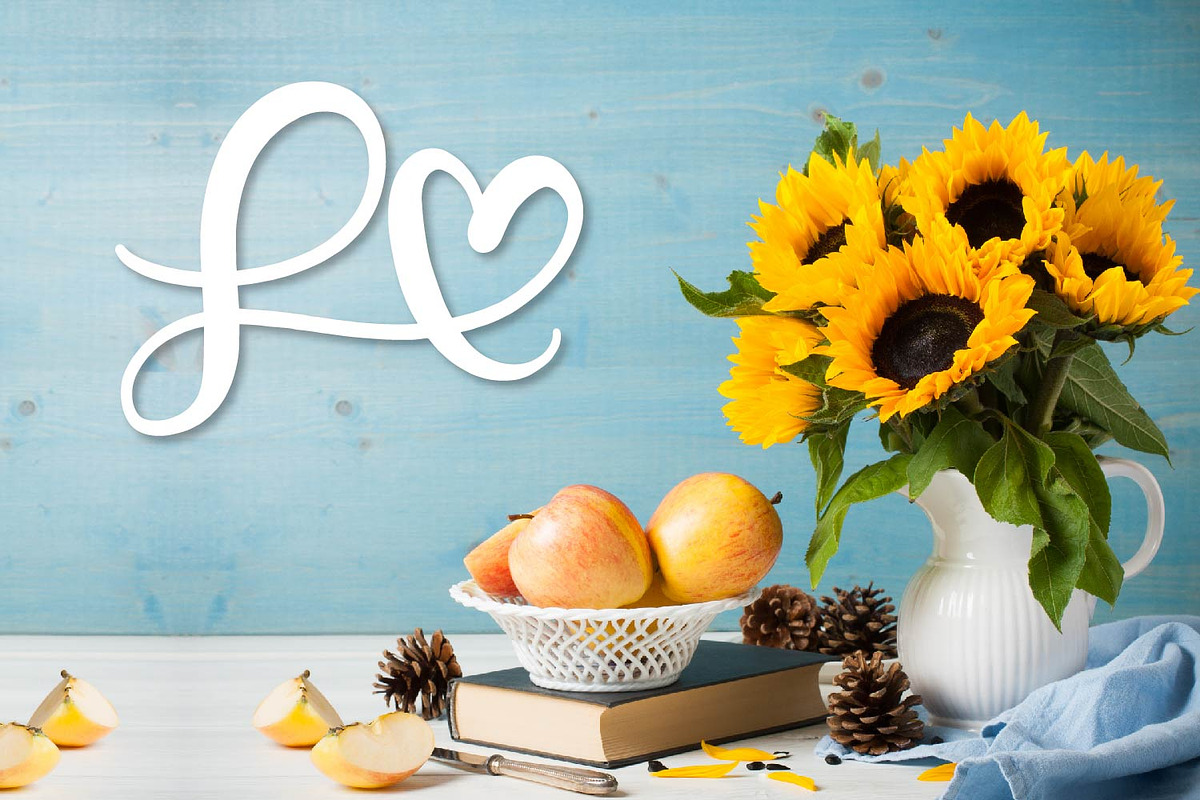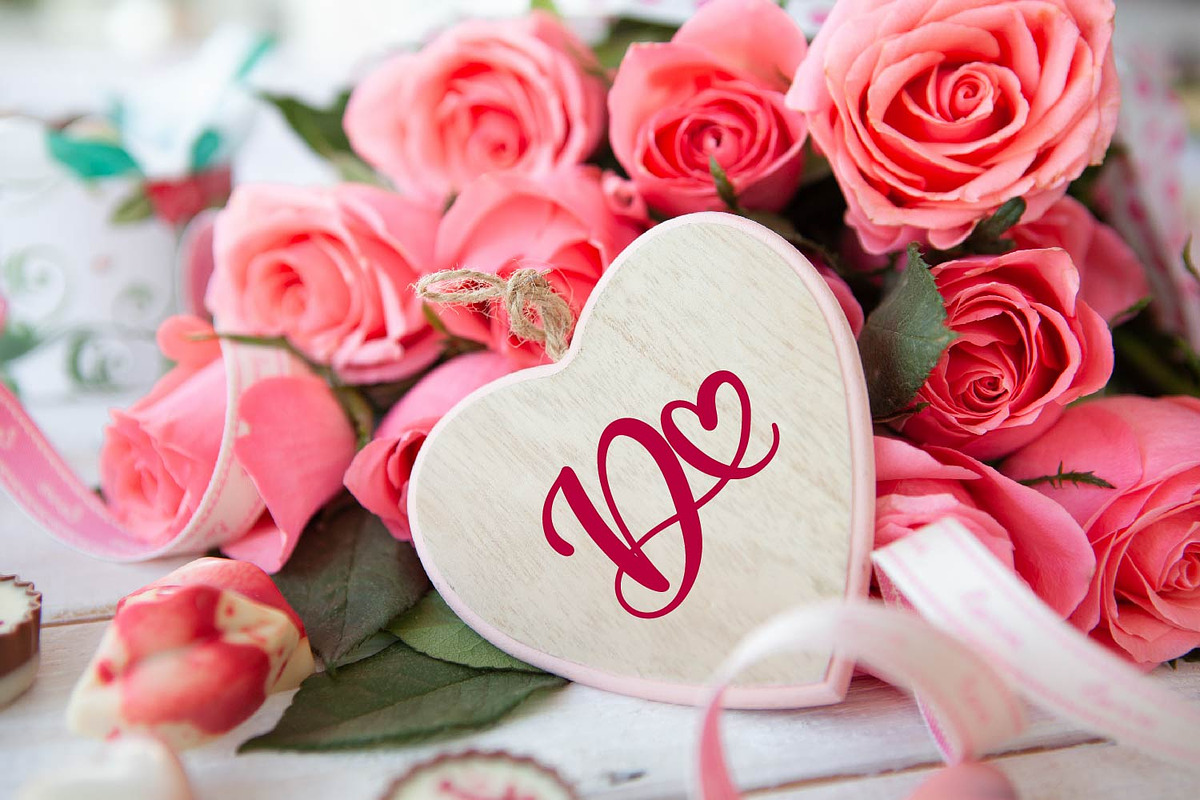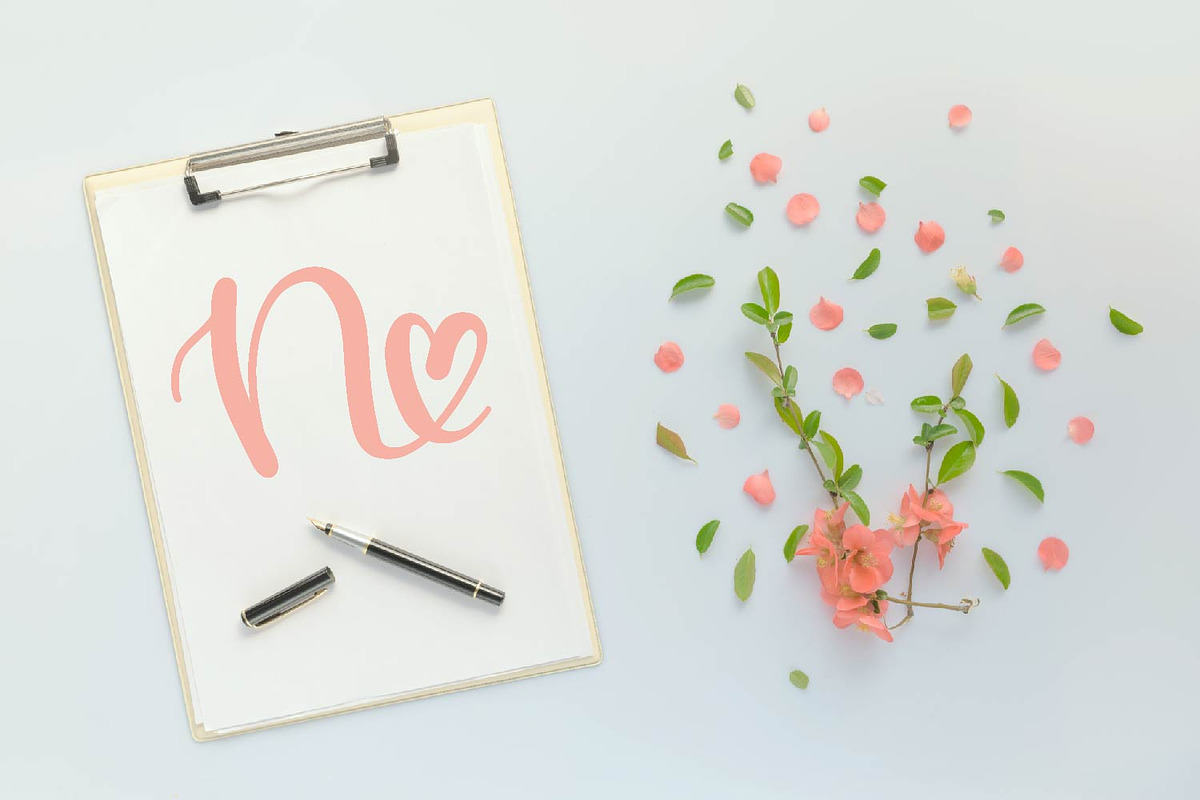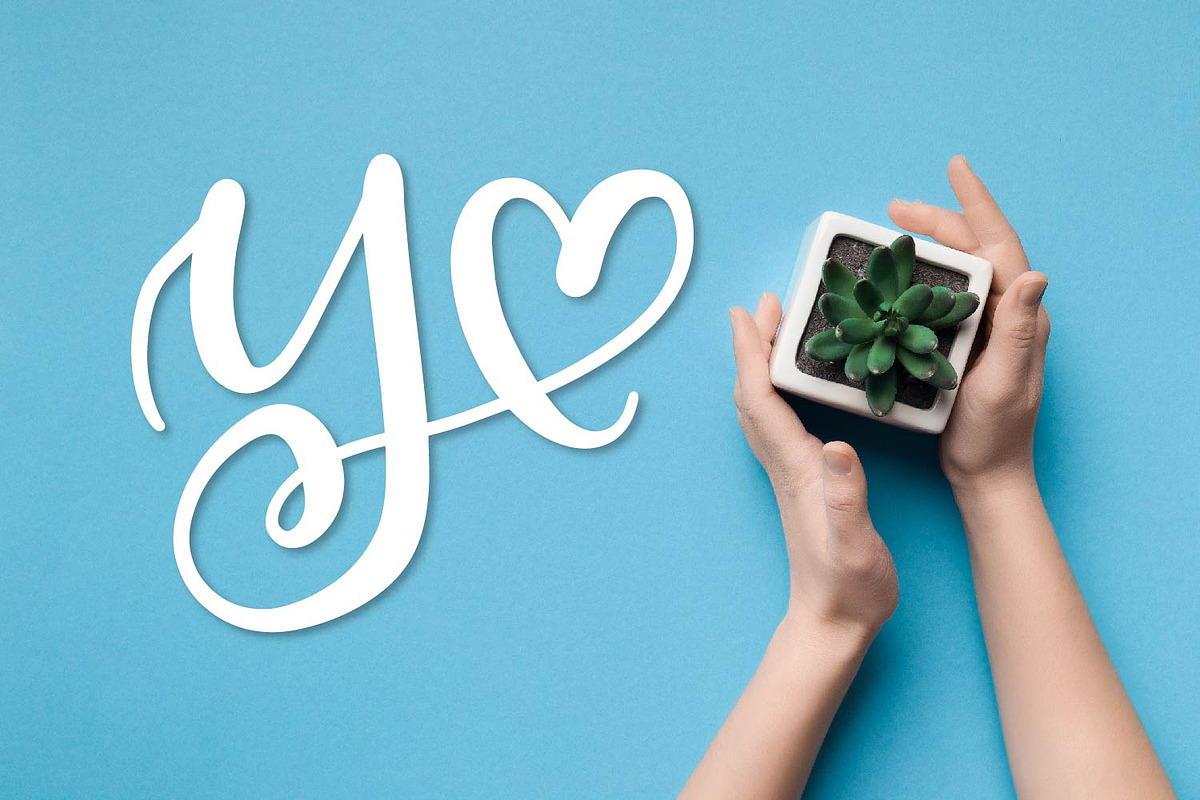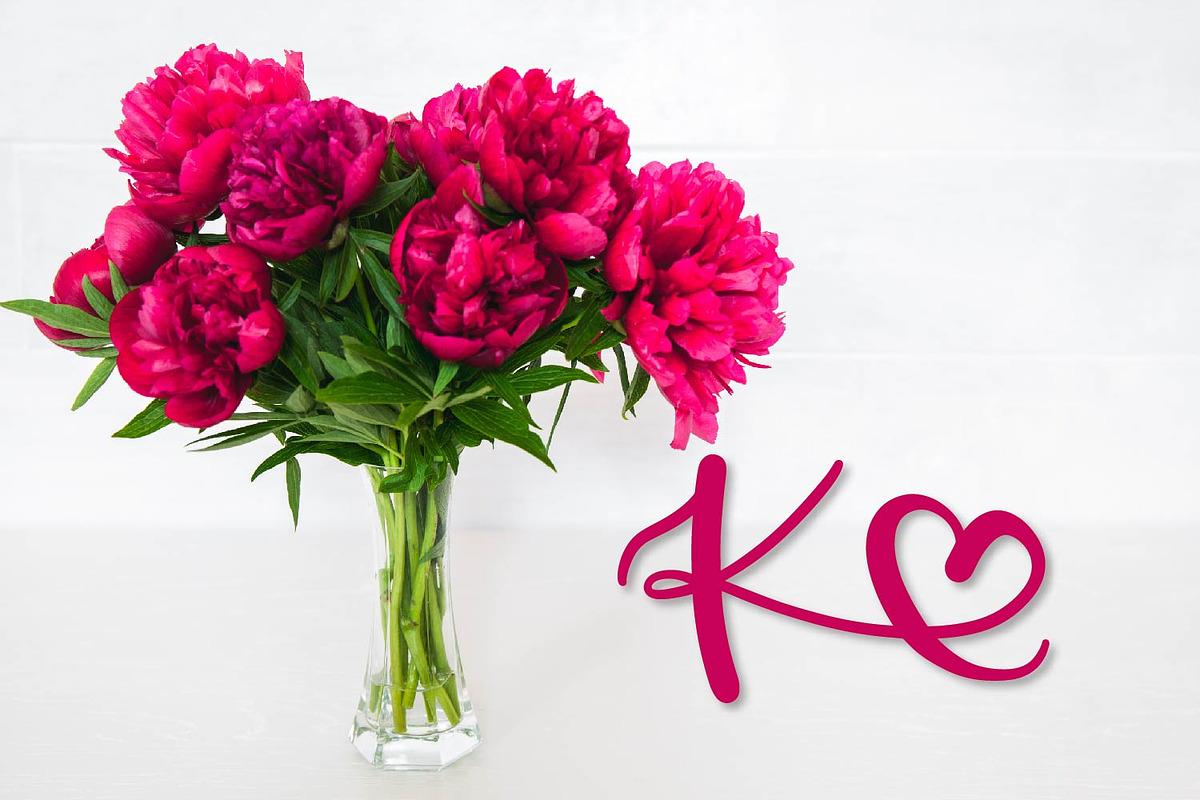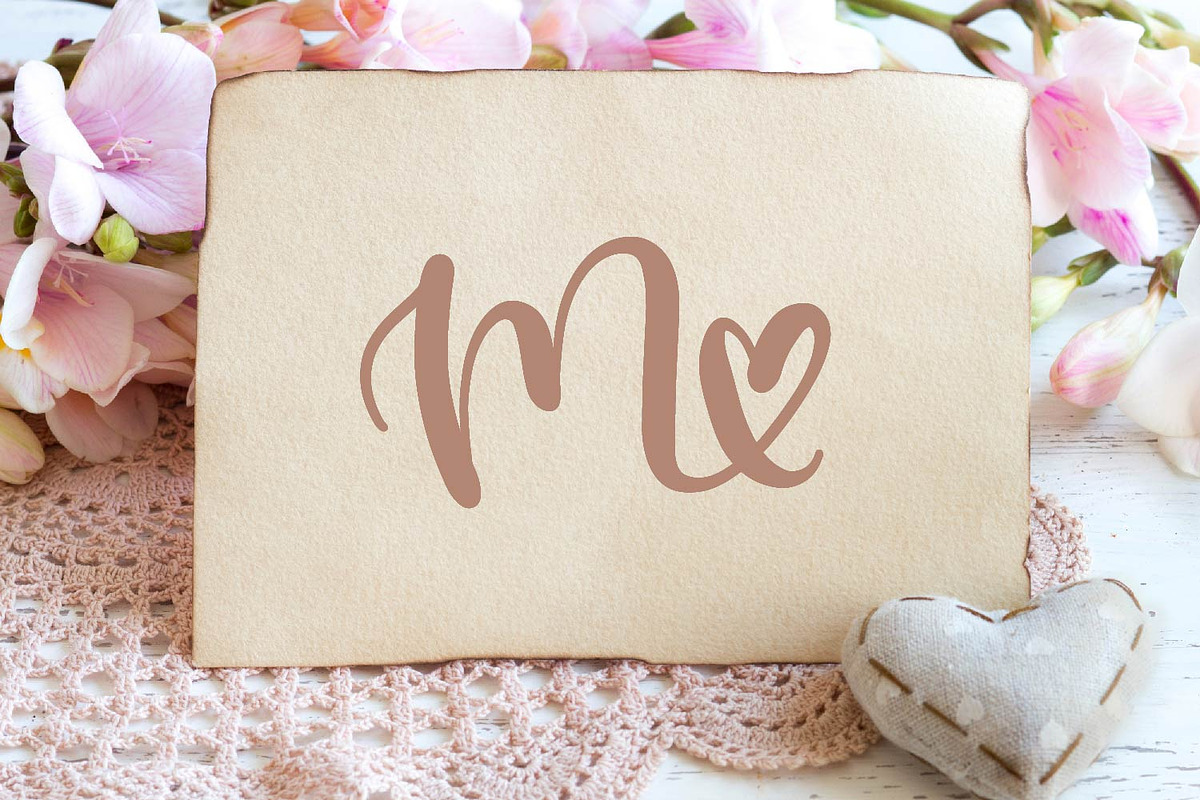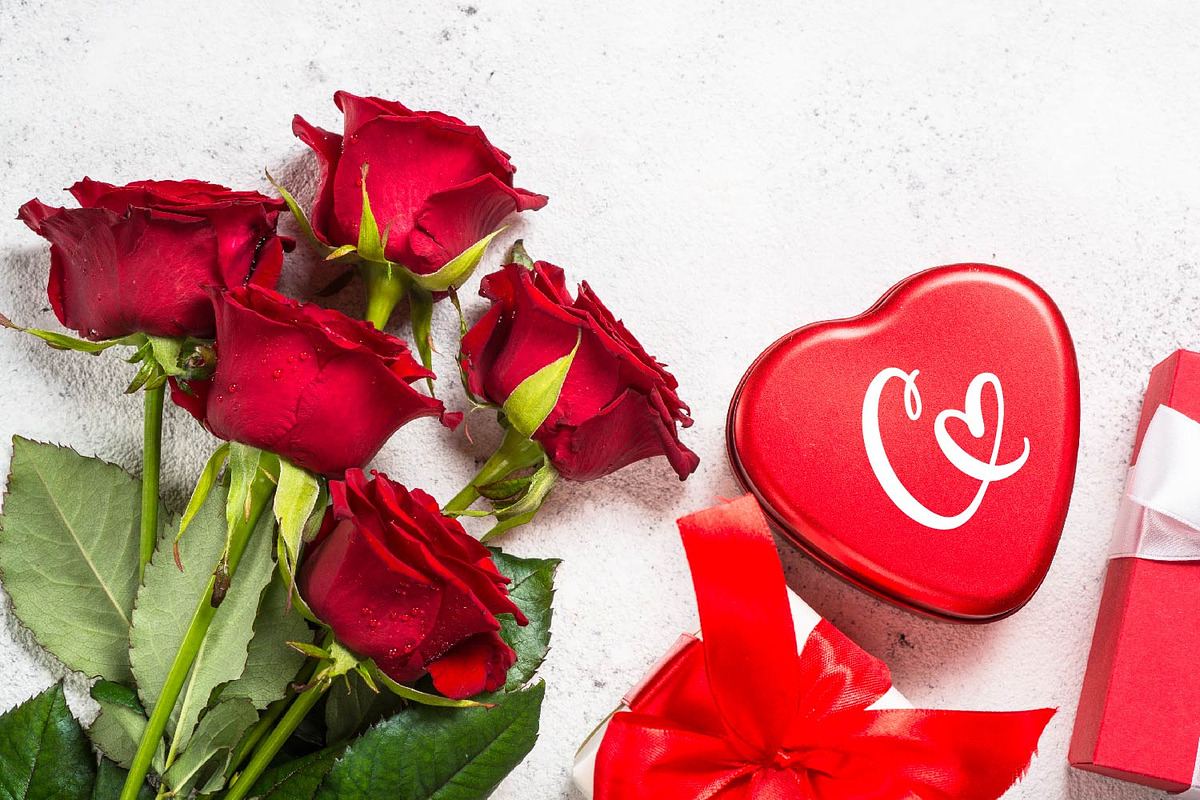
Heart Monogram Font - Hand Lettered
Heart Monogram Font Hand Lettered by CraftyLittleNodes is a font selected for branding, posters, packaging, typography.
Heart Monogram Font - Hand Lettered by CraftyLittleNodes fits naturally into Branding, posters, packaging, typography.